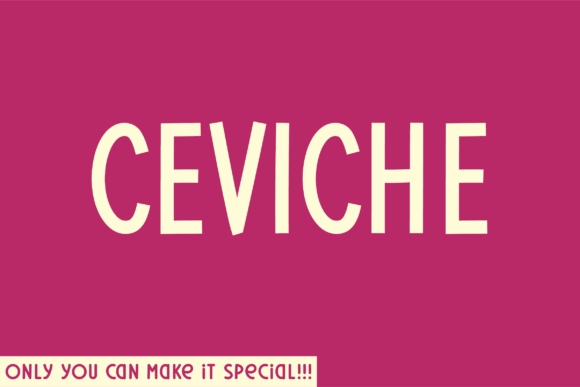
Unconventional Typography: The Story Behind Ceviche Font
Have you ever stared at a blank page, desperately seeking the perfect font to bring your design to life? That’s exactly where I was, until I stumbled upon Ceviche Font – a natural sans serif font that defied conventions and captured my attention. Its unique character has been crafted without altering a single node in each character’s indentation, making it a refreshing departure from the usual digital fonts.
Designed with versatility in mind, Ceviche Font is perfect for a wide range of applications, from quotes and notes to product design and apparel. Its distinctiveness makes it an attractive choice for designers looking to add a touch of personality to their work. Whether you’re a seasoned pro or just starting out, this font is sure to inspire creativity and elevate your designs.
As designers, we’re always on the lookout for unique elements to set our work apart. Ceviche Font is an excellent addition to any design arsenal, offering a fresh perspective on typography and a whole new world of creative possibilities.
Ceviche Font Key Features
- Font Family: Ceviche Font is a sans-serif typeface designed for digital use.
- Font Size: Available in various font sizes, including 14pt, 18pt, 24pt, and 36pt.
- Unique Characteristics: Ceviche Font features a clean, modern design with a subtle rounded edge, making it suitable for a variety of digital applications, including web design, mobile apps, and digital signage.
Ceviche Font Review
Overall, I was excited to dive into the Ceviche Font, but my experience was a bit of a mixed bag. Here’s what I think:
- Unique character**: Ceviche Font has a distinct, hand-crafted feel that sets it apart from more generic sans-serif fonts.
- High legibility**: The font is surprisingly easy to read, even at smaller sizes.
- Good for titles**: Ceviche Font works well for headings and titles, adding a touch of personality to your design.
- Not ideal for body text**: While Ceviche Font is readable, it’s not the most comfortable font for large blocks of text.
- May require adjustments**: Depending on your design, you may need to adjust the font size or line height to ensure optimal readability.
- Lack of versatility**: Ceviche Font is best suited for specific design contexts, such as titles or headings.
Overall, I’d give Ceviche Font 3.5 out of 5 stars. While it’s a unique and eye-catching font, its limitations make it less versatile than I’d like. However, if you’re looking for a font to add some personality to your titles or headings, Ceviche Font is definitely worth considering.
Tips for Getting the Most Out of Ceviche Font
To get the most out of Ceviche Font, try the following:
1. Use it in combination with other creative fonts to create a unique look.
2. Experiment with different font sizes and colors to add emphasis to your text.
3. Use Ceviche Font in creative ways, such as in titles, headings, or captions.
Ceviche Font is commonly used in:
1. Food and drink branding.
2. Fashion and lifestyle designs.
3. Creative and artistic projects.